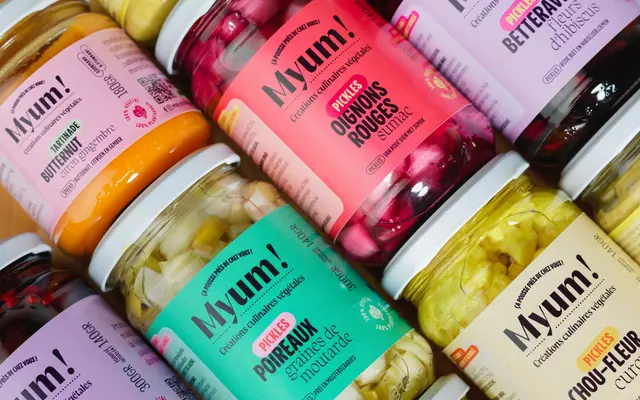
Migra
Pangram Foundry · Valerio Monopoli · 2020
A spiky display serif by Valerio Monopoli, its sharp terminals and fine cuts drawing on the aerodynamic forms of migratory birds.
Sixteen styles span eight weights from Extralight to Black, each with a matching italic that grows increasingly gestural as the weight increases. Sharp serifs and fine terminals give individual letterforms a taut, alert quality suited to fashion, art direction and high-end publishing. A variable font is included, and OpenType features cover discretionary ligatures, small caps, old-style figures and alternate characters for J, g and y.
Pangram categorise it as Display and Expressive; the sharp, spiky serifs and high-contrast sculptural forms are conceived for large-scale use rather than continuous text.